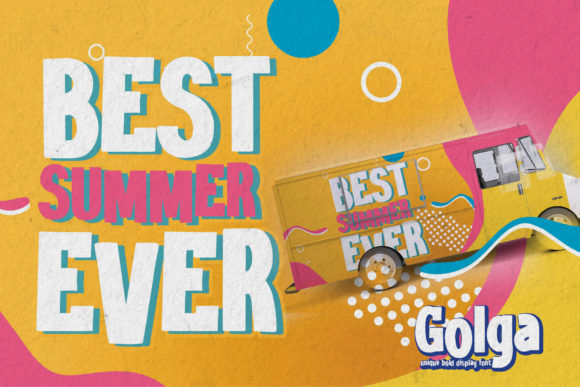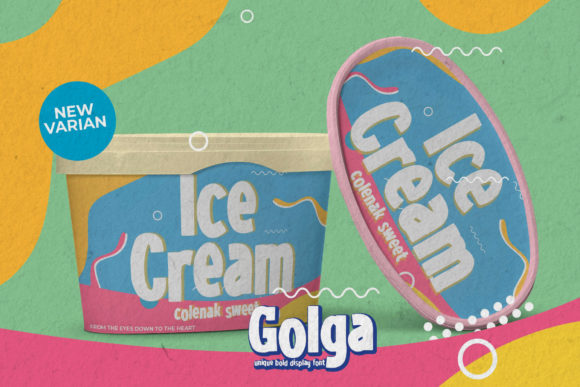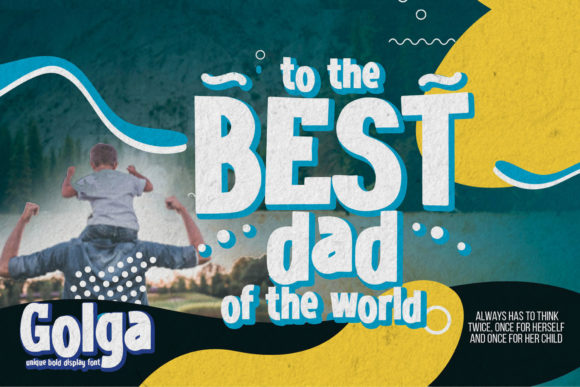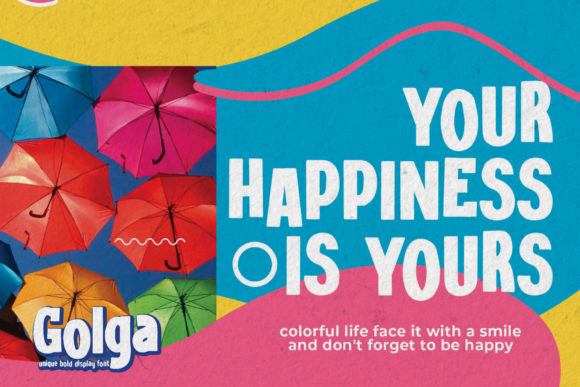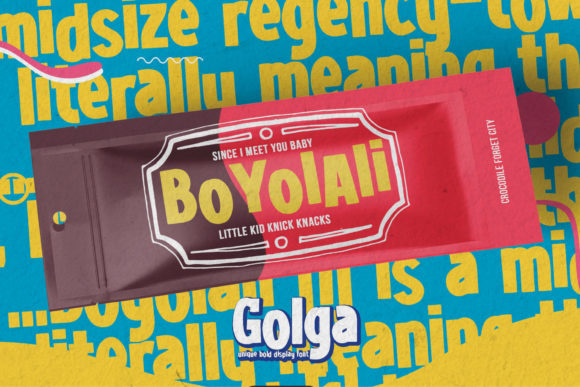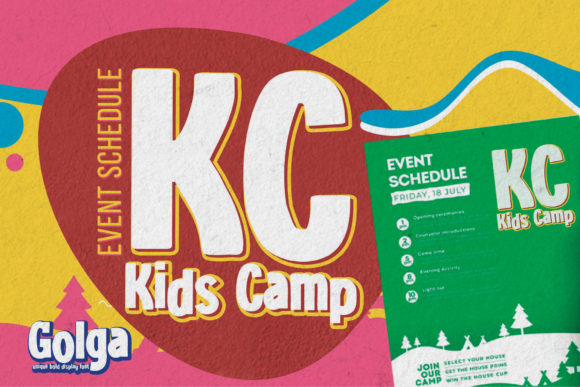
Golga Font: The Ultimate Display Font for Creative Projects
Are you tired of using the same old fonts for your design projects? Look no further than the Golga font, a cool, thick lettered, and paint brushed display font that’s sure to elevate your creations. With its unique and eye-catching style, Golga is an incredible asset to any font library, and we’re excited to dive into its features and benefits.
What is Golga Font?
Golga is a display font that’s designed to make a statement. Its thick, bold letters and paint brushed texture give it a distinctive look that’s perfect for headlines, titles, and other creative projects. Whether you’re a designer, crafter, or DIY enthusiast, Golga is a versatile font that can be used for a wide range of applications.
Key Features of Golga Font
• Thick Lettered: Golga’s bold letters are perfect for creating eye-catching headlines and titles.
• Paint Brushed Texture: The font’s paint brushed texture gives it a unique, hand-crafted look that’s perfect for creative projects.
• Display Font: Golga is designed specifically for display purposes, making it perfect for use in titles, headings, and other prominent text elements.
• Versatile: Golga can be used for a wide range of projects, from graphic design and crafting to DIY and handmade projects.
Benefits of Using Golga Font
So why should you choose Golga font for your next project? Here are just a few benefits of using this amazing display font:
• Adds Visual Interest: Golga’s unique style and texture add visual interest to any project, making it perfect for creative and design applications.
• Elevates Your Brand: With Golga, you can create bold and eye-catching headlines and titles that will help elevate your brand and make it stand out.
• Easy to Read: Despite its bold and textured style, Golga is surprisingly easy to read, making it perfect for use in titles and headings.
• Customizable: Golga can be customized to fit your project’s specific needs, making it a versatile font that can be used in a variety of contexts.
Who Can Benefit from Golga Font?
Golga font is perfect for a wide range of designers, crafters, and DIY enthusiasts, including:
• Graphic Designers: Golga is a great addition to any graphic designer’s font library, and can be used for a wide range of projects, from brochures and flyers to logos and branding materials.
• Crafters: Whether you’re a crafter who loves to make handmade cards, gift tags, or other paper crafts, Golga is a great font to use for adding a personal touch to your projects.
• DIY Enthusiasts: Golga is also perfect for DIY enthusiasts who love to make their own signs, banners, and other decorative items.
How to Use Golga Font
Using Golga font is easy! Here are a few tips for getting the most out of this amazing display font:
• Use it for Headlines and Titles: Golga is perfect for use in headlines and titles, where its bold and eye-catching style can really make an impact.
• Experiment with Colors: Golga looks great in a wide range of colors, so don’t be afraid to experiment and find the perfect color to match your project’s theme.
• Pair it with Other Fonts: Golga can be paired with a wide range of other fonts to create a unique and visually interesting look.
In conclusion, Golga font is an amazing display font that’s perfect for designers, crafters, and DIY enthusiasts. With its unique and eye-catching style, Golga is sure to elevate any creative project and add a touch of personality and flair. Whether you’re looking for a bold and eye-catching font for your next graphic design project, or a unique and personalized font for your handmade crafts, Golga is an excellent choice.